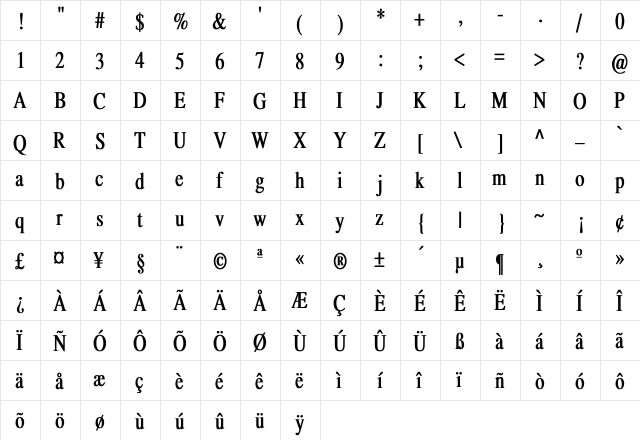
RSTempus Cn bold Bold
Design Context for RSTempus Cn bold Typeface
RSTempus Cn bold is a composed and adaptable typeface that performs quietly and consistently across a wide range of design contexts. Its bold stroke weight gives it real presence on the page.
Pro Tip: Pair RSTempus Cn bold with a font of contrasting weight or personality to build a more expressive typographic hierarchy.